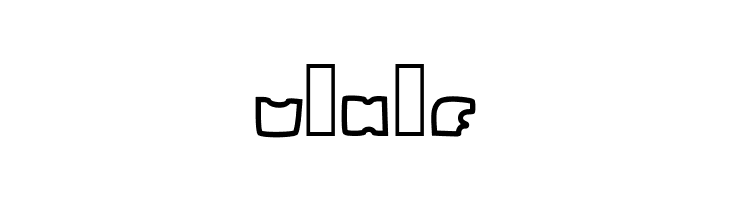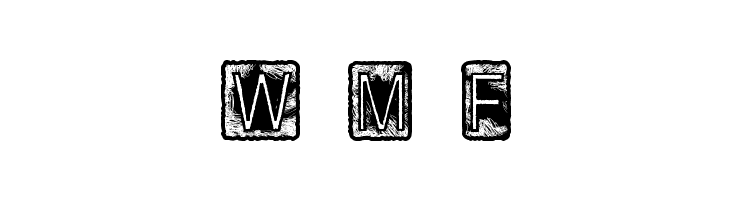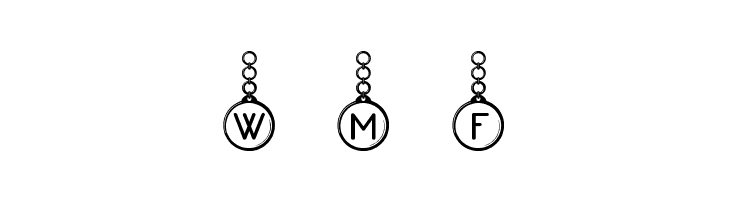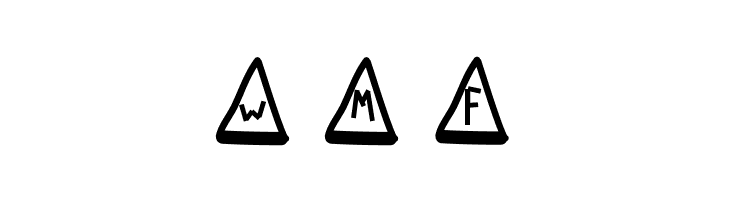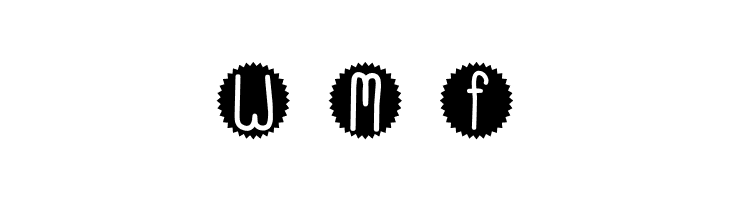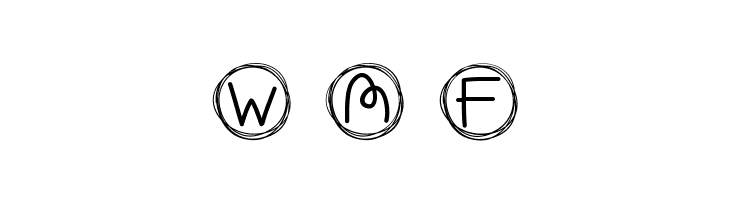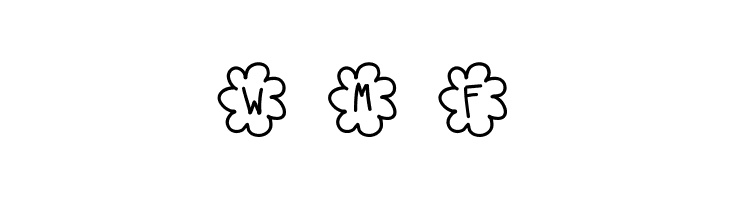
A decorative font with geometric letters enclosed in ornate diamond shapes.
A bold, geometric font with characters enclosed in circles, connected by lines.
A decorative font with characters enclosed in bold star shapes, perfect for playful designs.
A bold, geometric font with characters enclosed in circles, offering a playful and modern look.
A bold, playful font with characters enclosed in tag-like shapes.
A bold, hand-drawn font with whimsical characters enclosed in rectangular blocks.
A bold, geometric font with characters enclosed in rectangular outlines.
A bold, circular font with enclosed characters, offering a playful and retro vibe.
A bold, circular font with playful, enclosed characters.
A bold, geometric font with characters enclosed in squares, offering a modern and structured appearance.
A playful font with characters enclosed in pumpkin shapes, perfect for seasonal themes.
A bold, playful font with a 3D shadow effect and blocky, enclosed letters.
A playful, hand-drawn font with characters enclosed in bold, irregular boxes.
A bold, decorative font with characters enclosed in tag-like shapes.
A bold, geometric font with a cut-out style, enclosed in square outlines.
Bold, geometric font with high contrast and enclosed characters.
A playful, bold font with characters enclosed in rounded black shapes, ideal for creative projects.
A playful, bold font with characters enclosed in black circles, offering a unique and decorative style.
A playful, gear-enclosed font with an industrial theme.
A bold, distressed font with characters enclosed in textured boxes, perfect for vintage and grunge designs.
A bold, geometric font with characters enclosed in circles, ideal for monograms.
A playful, pendant-like font with bold, sans-serif characters enclosed in circles.
A bold, playful font with a bubbly, enclosed design.
A playful, tab-enclosed font with bold, rounded characters.
A bold, decorative font with characters enclosed in star-adorned frames.
A bold, decorative font with letters enclosed in circular saw blade-like borders.
A playful, decorative font with letters enclosed in circular borders.
A decorative font with characters enclosed in ornate circular emblems.
A playful font with characters enclosed in flower-shaped outlines, perfect for creative projects.